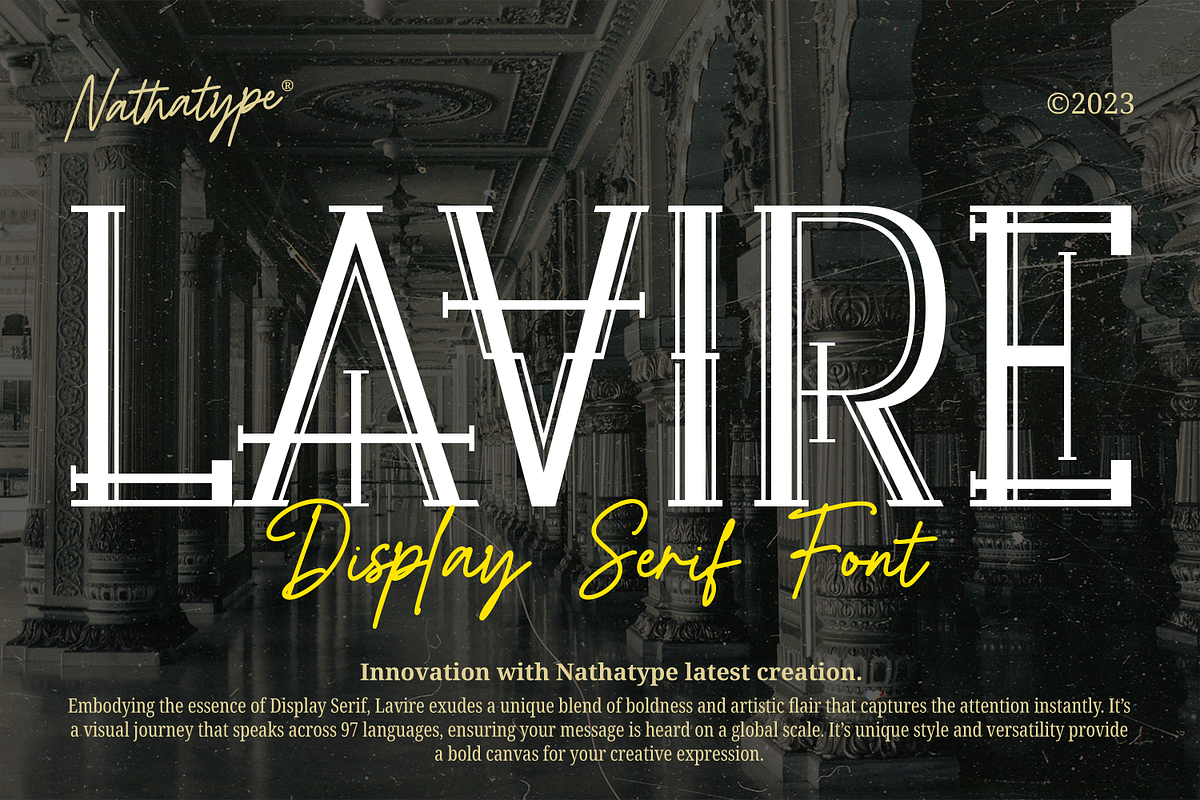
Lavire Font Free Download is a modern, elegant serif typeface designed for high-end, professional use. With its sleek lines, refined serifs, and distinctive features, Lavire is perfect for luxury branding, editorial design, logo creation, and upscale marketing materials. The font offers a sophisticated yet approachable look, making it ideal for both digital and print media.
Whether you’re working on a luxury product, creating an elegant website, or designing professional branding materials, Lavire brings a timeless, polished aesthetic to your designs.